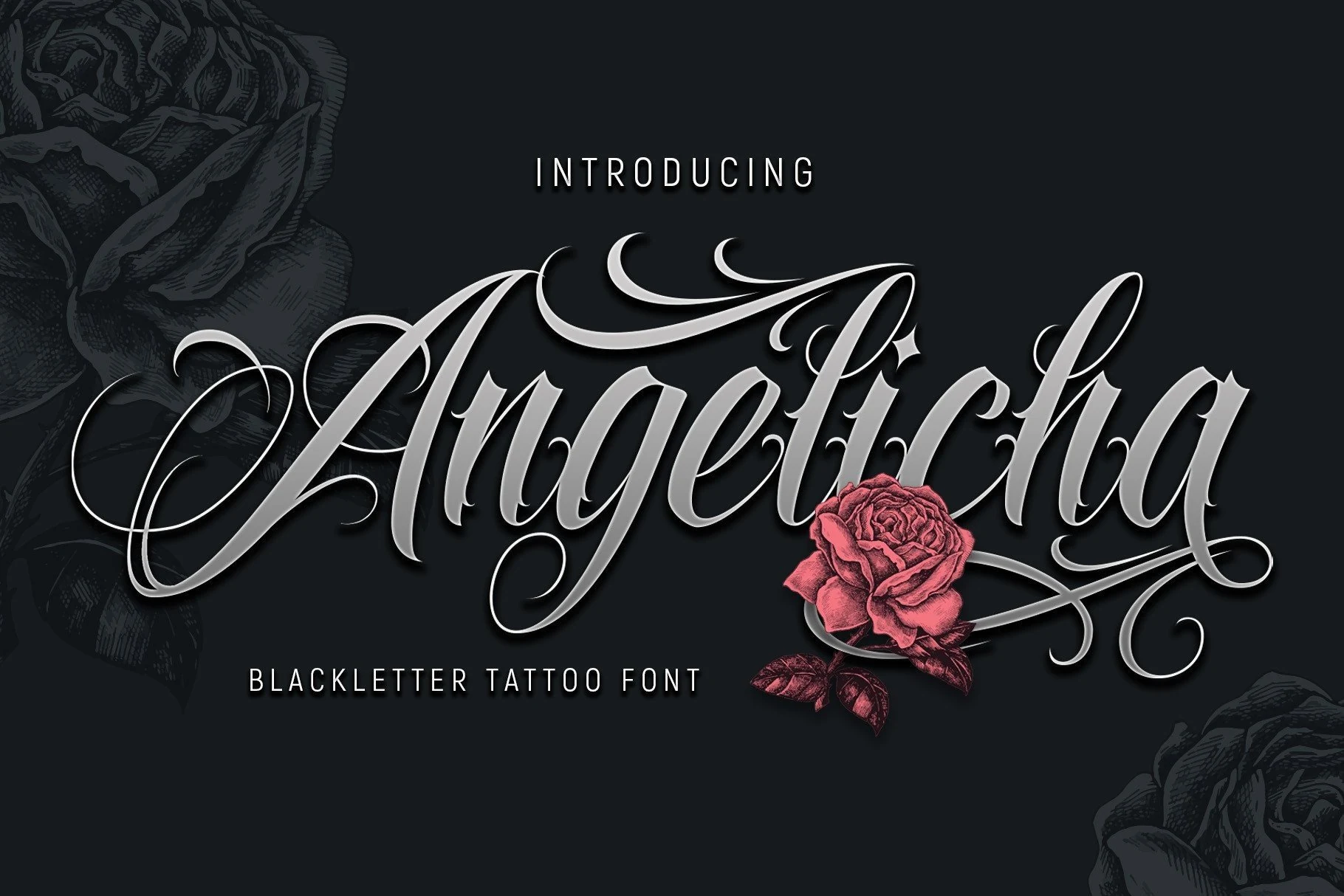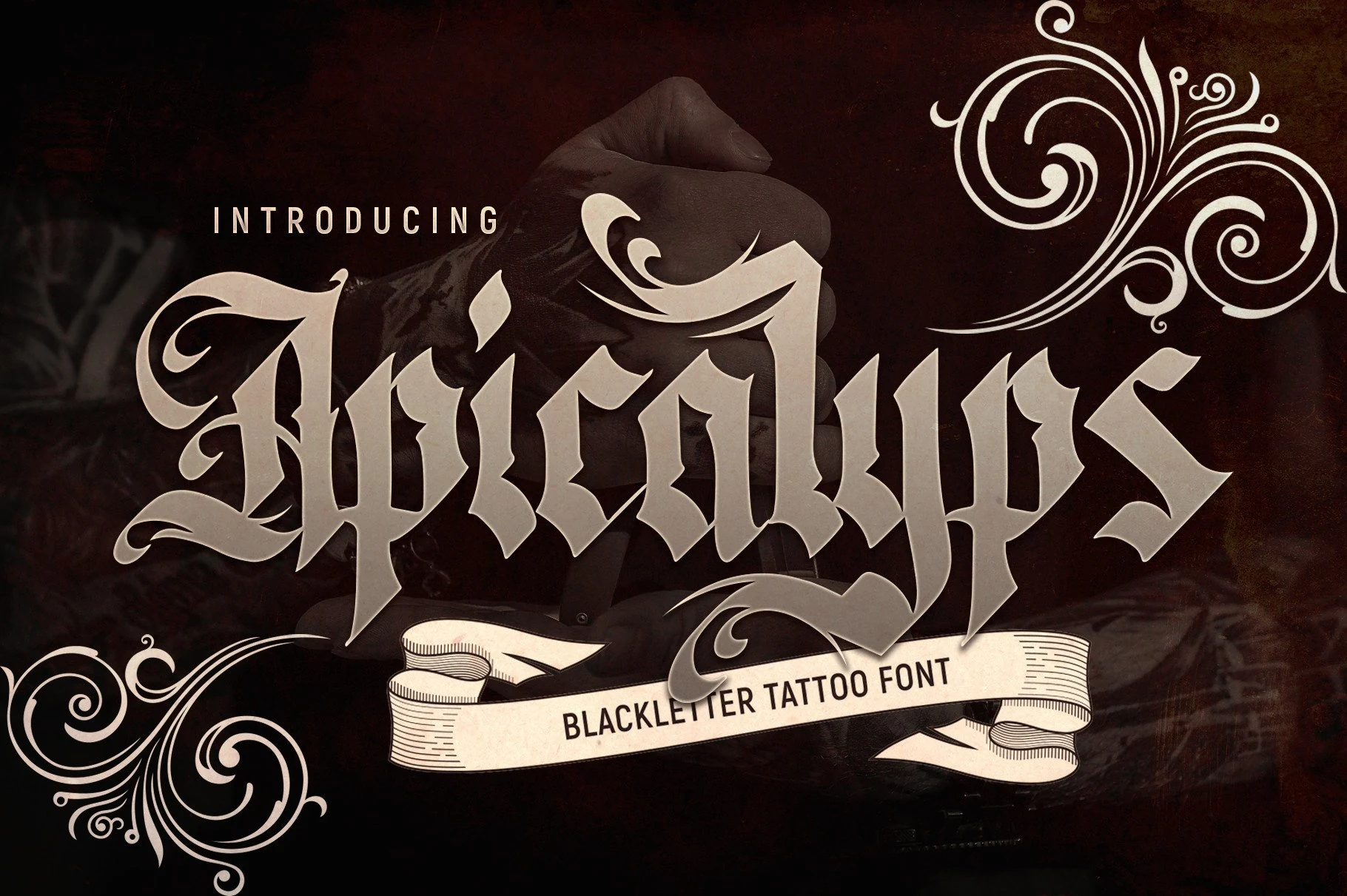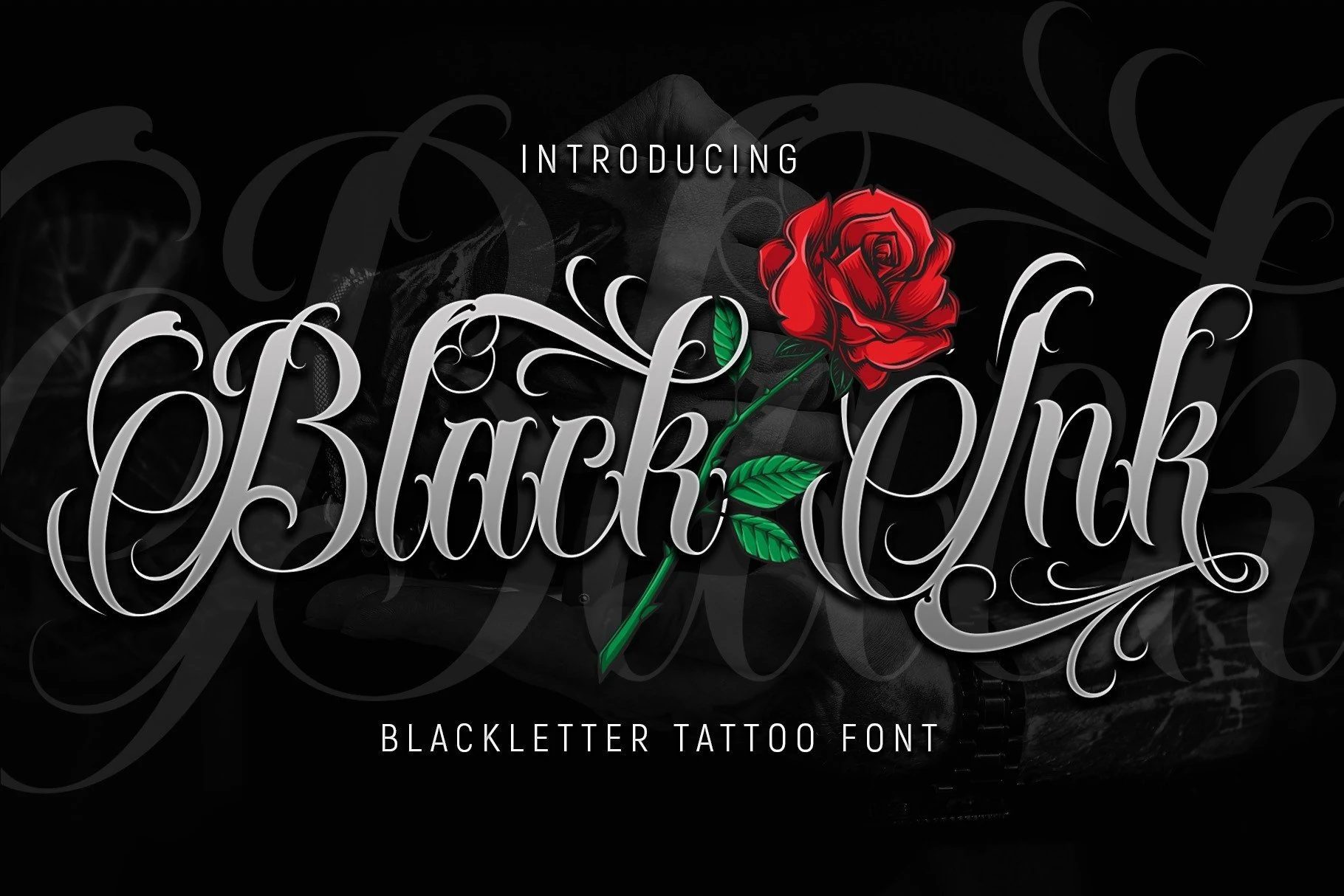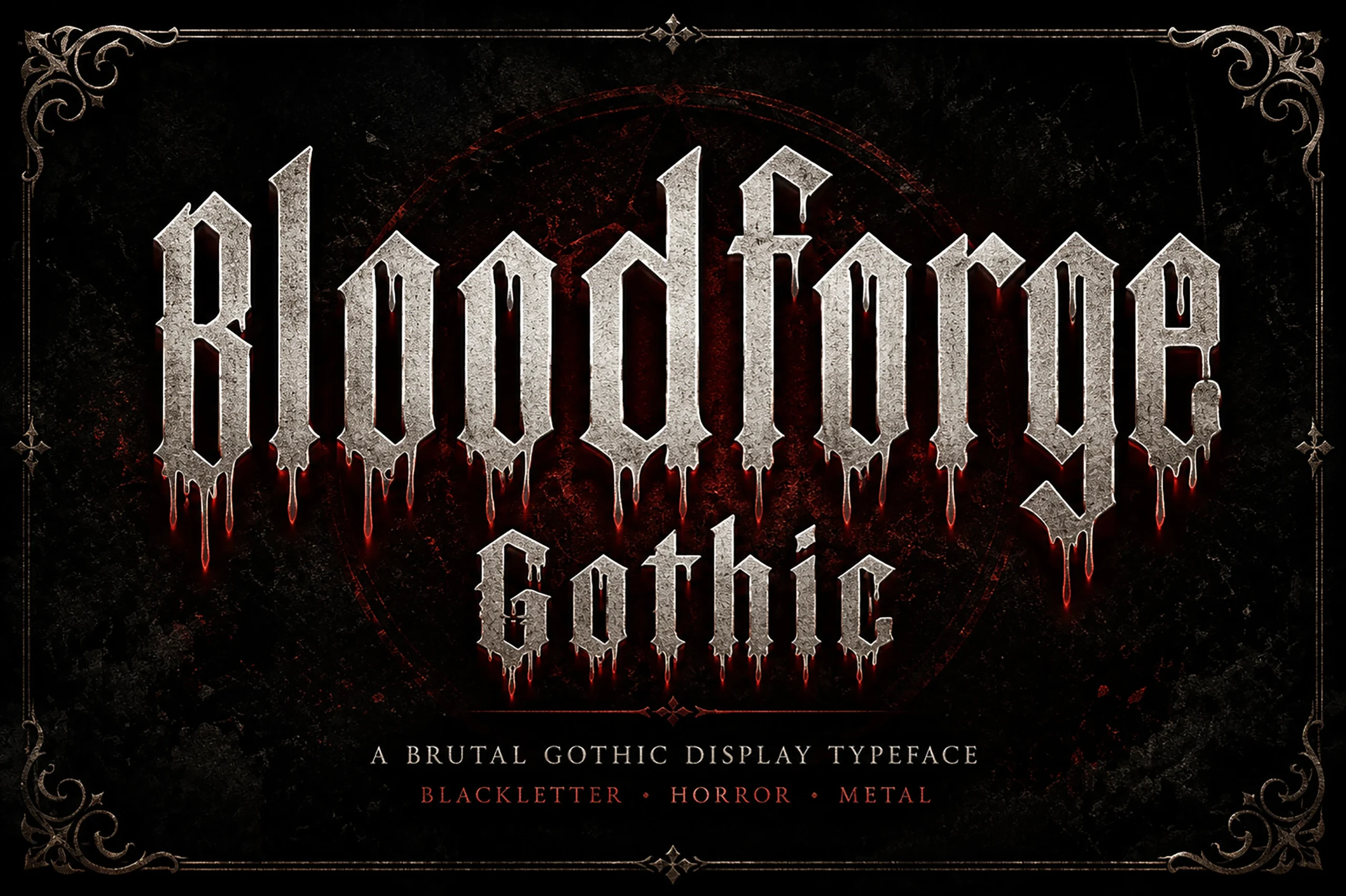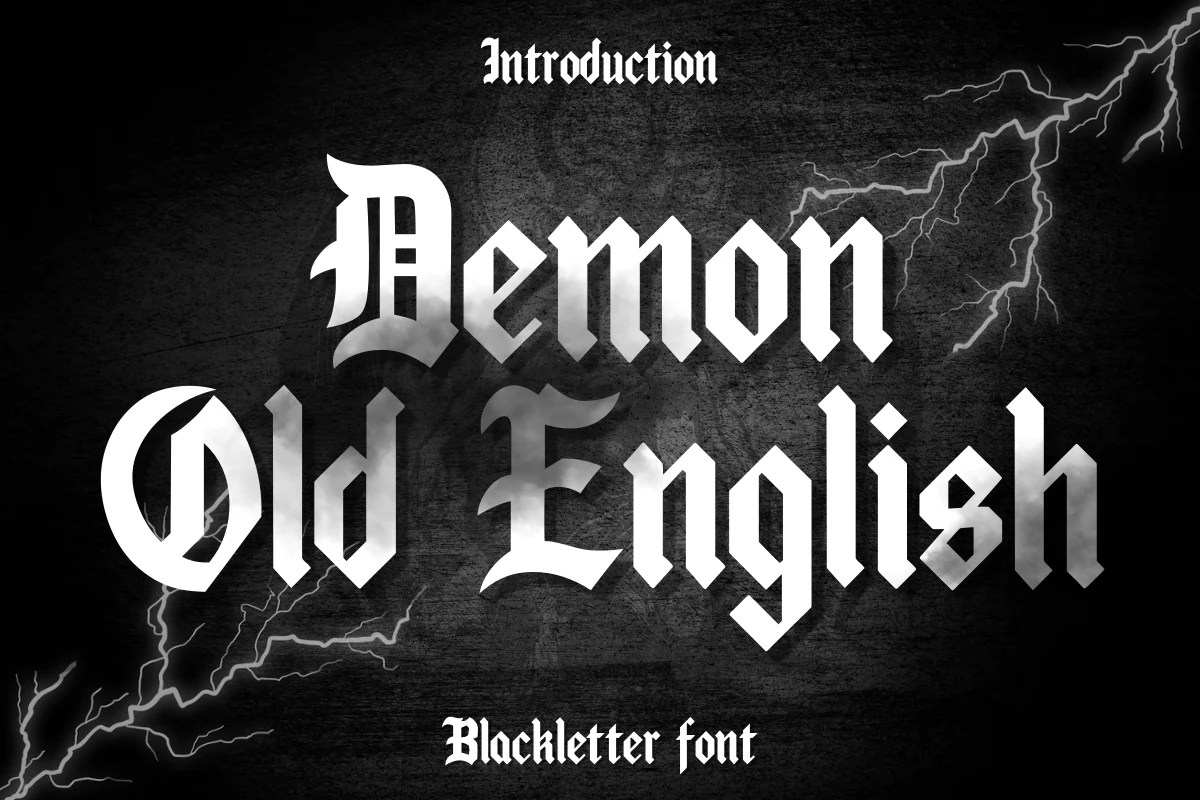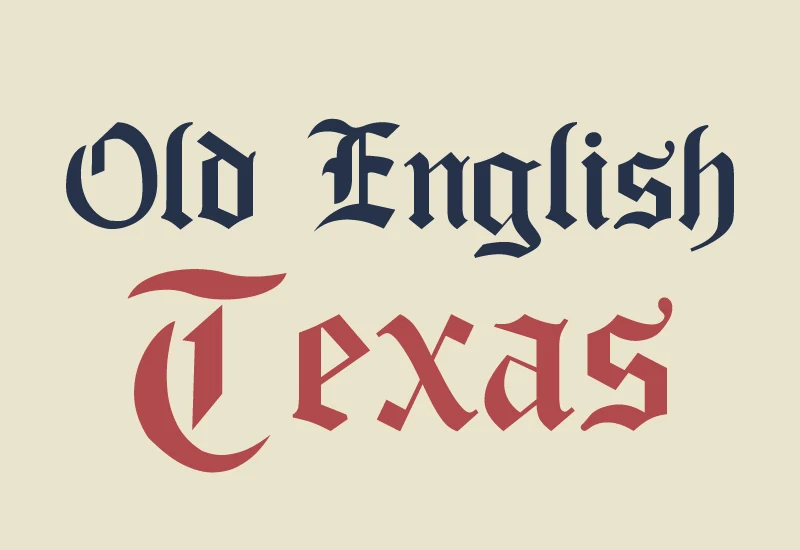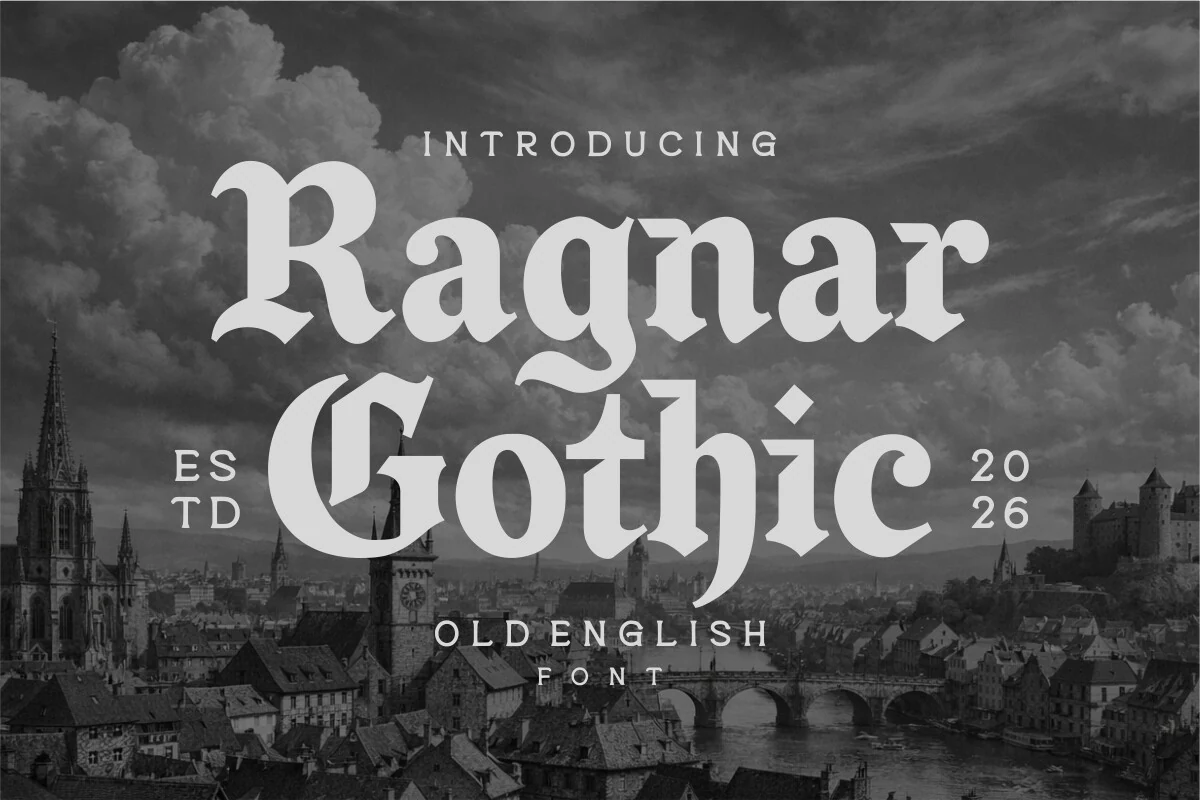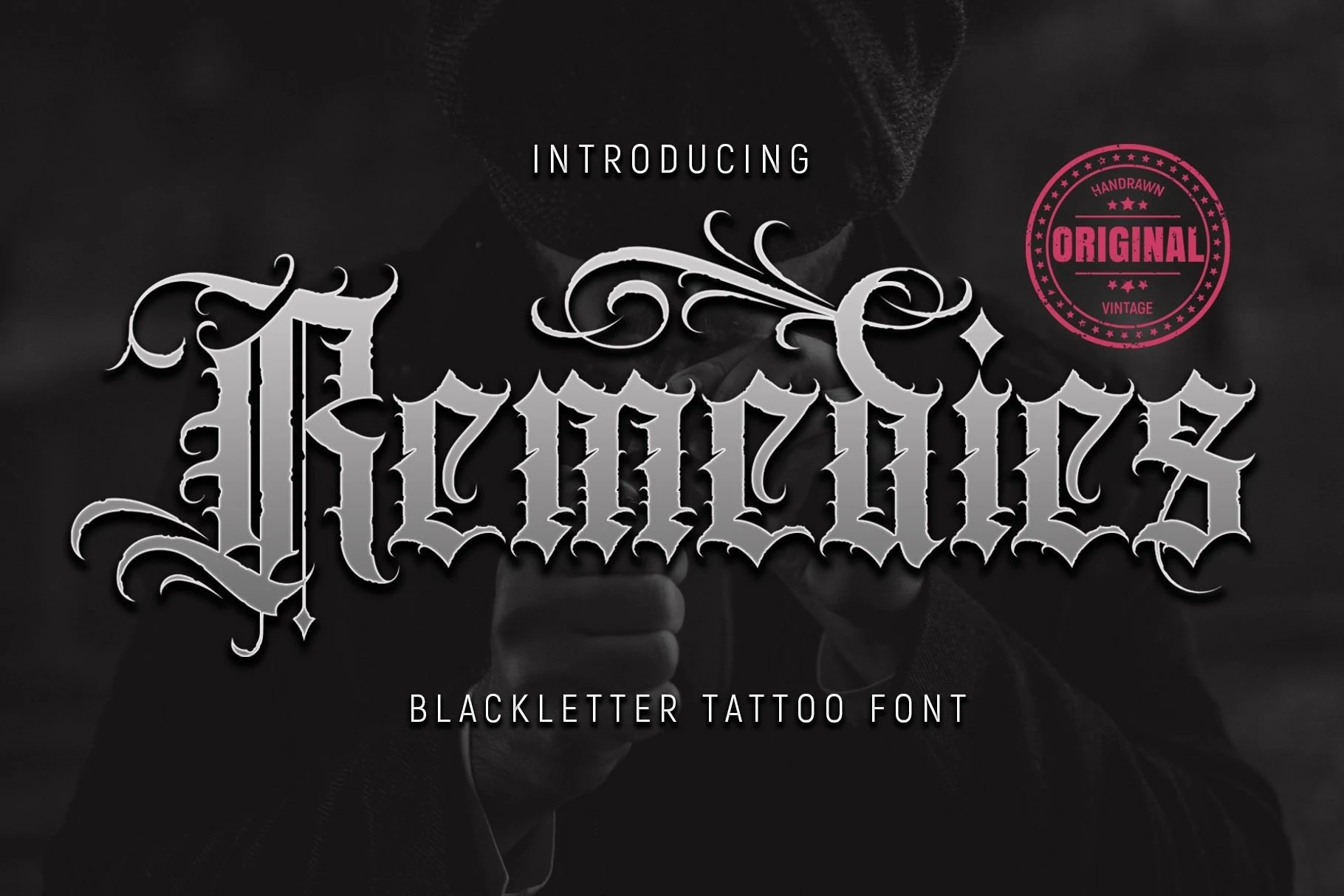
11 Best Blackletter Tattoo Font for Tattoo Designs in 2026
This Blackletter Tattoo Font collection spans dense Old English structures, connected calligraphic lettering, and distressed contemporary forms with sharp terminals, flourishes, or irregular edges. These differences make the fonts useful for tattoo-inspired logos, apparel, posters, signage, and other short display work where visual identity matters more than paragraph-length readability.
Blackletter Tattoo Font: Traditional Dense Forms
This Blackletter Tattoo Font group centers on dense Old English construction: heavy verticals, fractured terminals, and stable upright forms. It is more formal and compact than the connected or distressed categories.
Gothic Old English Font
Gothic Old English Font in a condensed blackletter style with heavy vertical strokes, sharp angular forms, and diamond-shaped terminals.
Gothic Old English Font delivers the collection's clearest traditional Old English structure through heavy vertical strokes, fractured shapes, diamond terminals, and a stable upright baseline. It works well for logos, signage, and display text, though its dense details need room to remain clear.
Ragnar Gothic Font
Ragnar Gothic Font displayed in ornate blackletter letters with thick vertical strokes, high contrast, and pointed angular terminals.
Ragnar Gothic Font builds its formal Old English identity from thick stems, pointed terminals, and decorative curves on capital letters. The flourished capitals give branding and headlines a distinct finish, while high contrast makes paragraphs difficult to scan.
Old English Texas Font
Old English Texas Font with heavy vertical strokes, angular terminals, and dense ornamental blackletter forms.
Old English Texas Font uses closely spaced, block-like forms and heavy vertical strokes to create a compressed silhouette. Its angular structure suits signage, logos, and posters, but the letterforms can merge into dark clusters when reduced.
Demon Old English Font
Demon Old English Font with heavy high-contrast strokes, sharp angular terminals, and condensed decorative letterforms.
Demon Old English Font packs heavy condensed strokes and internal character detailing into an intense Gothic block. It is most effective for short, prominent wording on shirts, banners, cards, and social graphics rather than small or lengthy text.
Ornamental and Connected Forms
Connected joins, calligraphic movement, and extended swashes define this group. Compared with the dense traditional faces, these designs feel more fluid; unlike aggressive forms, their identity comes from flourish and rhythm.
Apicalyps Font
Apicalyps Font features sharp angular letterforms, high stroke contrast, and decorative swashes.
Apicalyps Font uses narrow, heavy proportions, fractured angular strokes, and high contrast, with disconnected letters and extended swashes. Its intricate construction is best reserved for large logos, posters, or apparel graphics rather than small wording.
Angelicha Font
Angelicha Font features high-contrast angular strokes, ornate swashes, and connected calligraphic flourishes.
Angelicha Font stands apart through fluid calligraphic connections rather than sharply separated forms. Pointed terminals retain its Gothic edge, while long swashes demand generous scale, making it more suitable for logos, poster titles, and short apparel lettering than extended copy.
Black Ink Font
Black Ink Font is a highly ornamental calligraphic script with elaborate swashes, sharp terminals, and connected cursive letterforms.
For flowing tattoo-script lettering, Black Ink Font uses connected cursive forms, pointed pen terminals, high contrast, and extended swashes. The continuous joins work for signature-like logos and posters, but the flourishes need large sizing to stay legible.
Aggressive Contemporary Display Forms
These display faces push blackletter toward sharper, harsher territory through thorn terminals, high contrast, drips, and irregular textures. They create stronger visual impact than the steadier traditional forms.
The Gothic Rite Font
The Gothic Rite Font features sharp angular forms, high stroke contrast, fractured terminals, and condensed vertical proportions.
For title work, The Gothic Rite Font combines condensed vertical proportions, sharp diamond-shaped terminals, and strong thick-thin contrast. Its 202 glyphs and documented language coverage broaden title-setting options, but the intricate geometry is intended for logos, book covers, and posters rather than sustained reading.
Void Gothic Font
Void Gothic Font features ornate blackletter forms with sharp angular terminals and high-contrast strokes.
How to Choose the Right Font
Choose a Blackletter Tattoo Font by deciding whether you need fractured density, connected movement, or distressed aggression first. Check weight and contrast at the intended scale, then test joins, flourishes, and terminals in the actual wording. For tattoos, logos, and apparel, keep text short and enlarge intricate faces; for signage, favor steadier traditional structures.